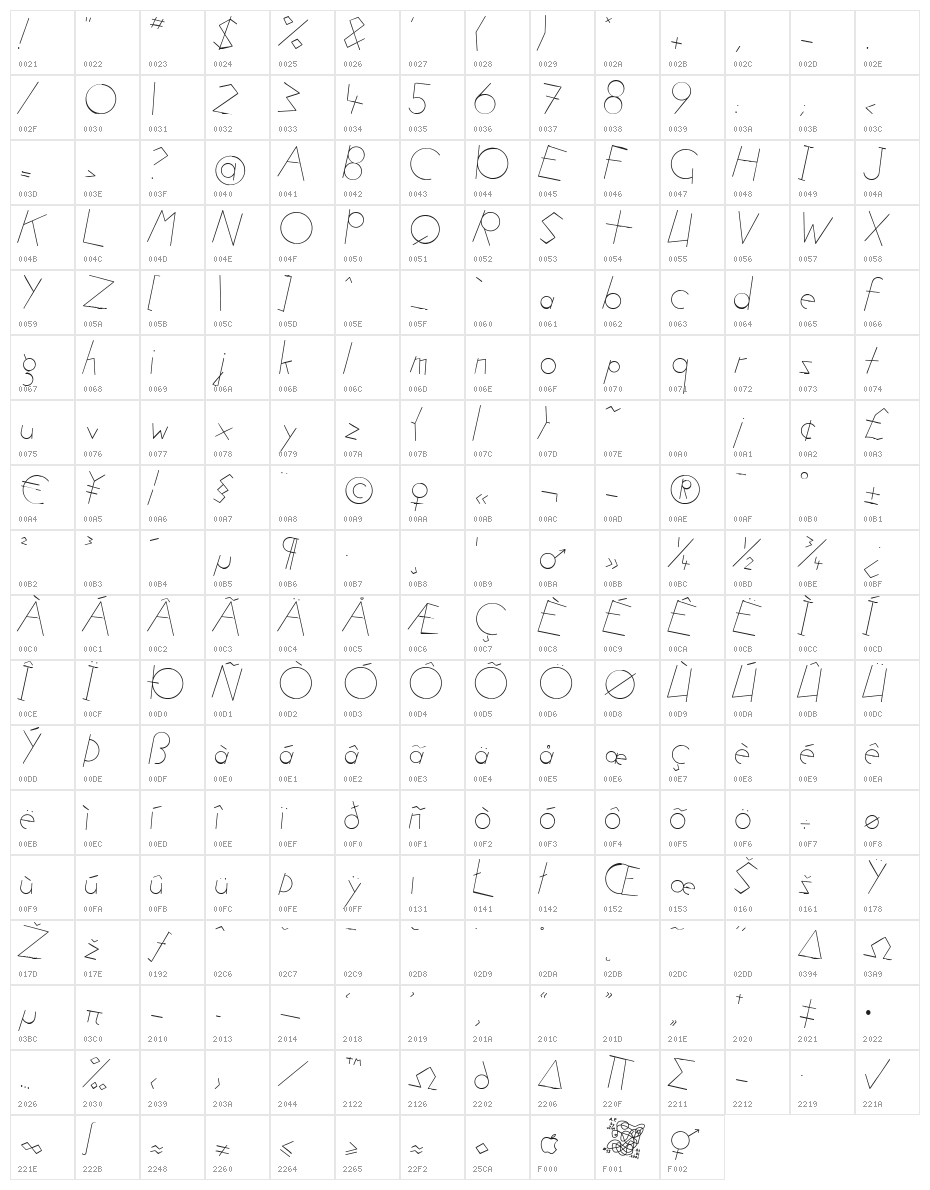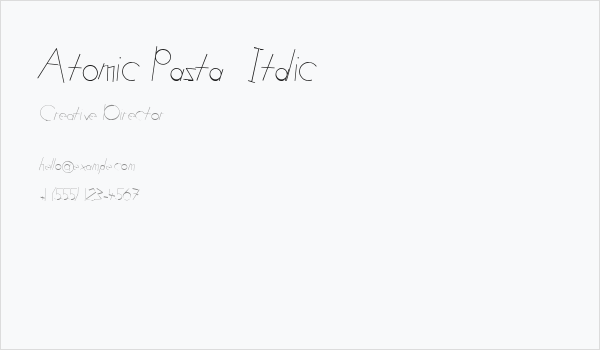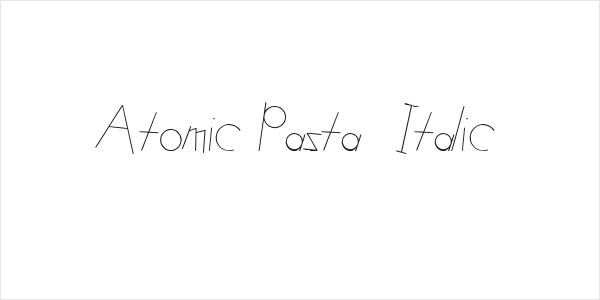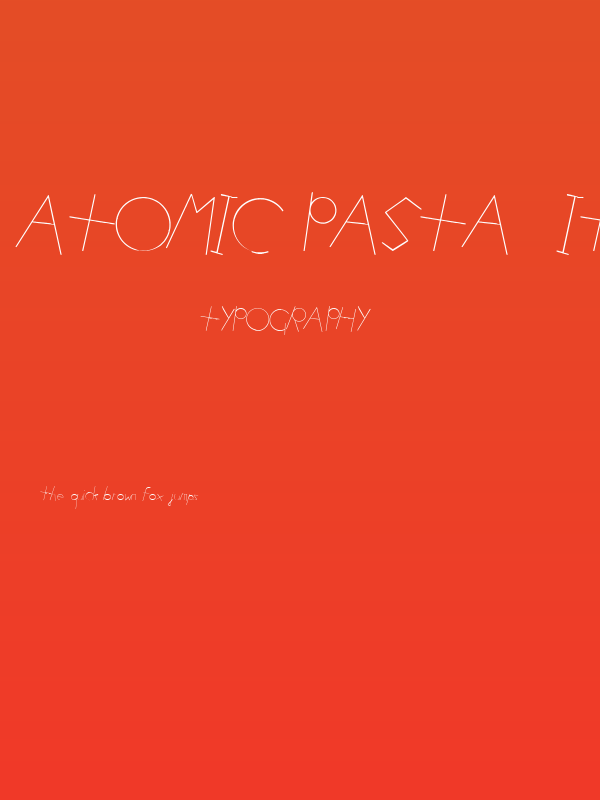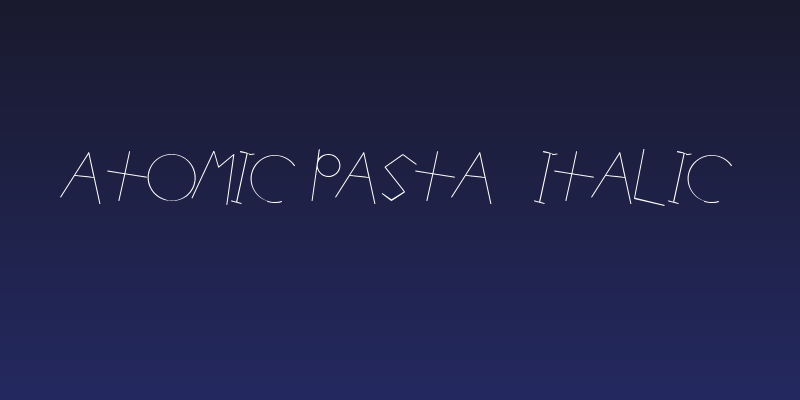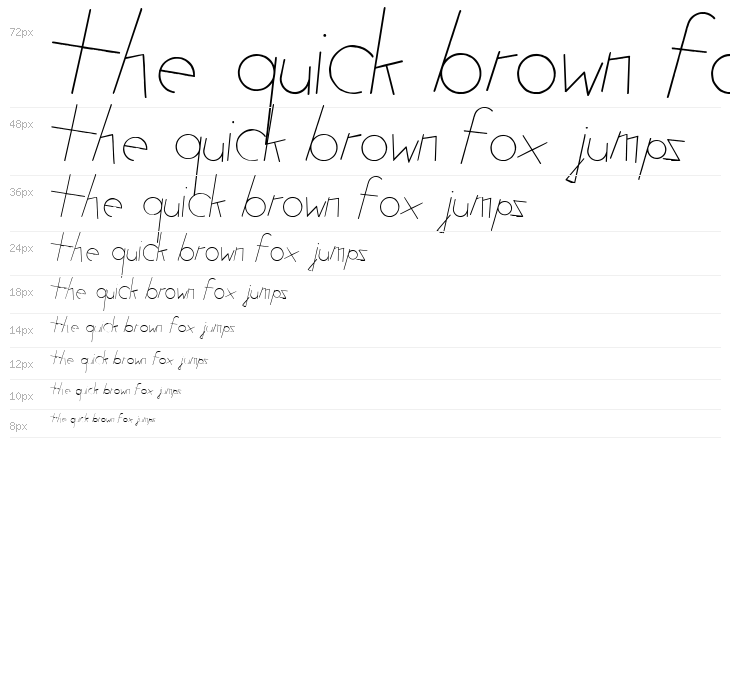
Atomic Pasta Italic Font
Atomic Pasta Italic Description
This font exhibits a unique, playful style with a modern twist. The characters are elongated and slightly tilted, giving an italicized appearance that adds a sense of motion and dynamism. The strokes are thin and consistent, creating a clean and airy feel. The uppercase letters are angular and geometric, while the lowercase letters maintain a more rounded and fluid form. Numbers and special characters follow the same design principles, ensuring a cohesive look across all elements. This font's distinctive style makes it stand out, offering a fresh and creative approach to typography.
| Use Case | Headlines, Logos, Artistic designs |
| Proposed Projects | Ideal for creative projects such as branding, posters, and artistic designs where a unique and modern touch is desired. |